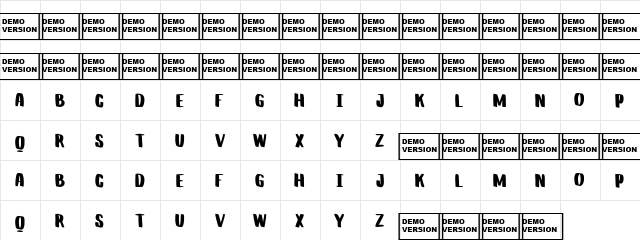
Better Together Caps
Design Context for Better Together Typeface
Better Together takes a measured approach to typography — its balanced proportions and neutral character make it a reliable workhorse for both digital and print work.
Pro Tip: Pair Better Together with a font of contrasting weight or personality to build a more expressive typographic hierarchy.